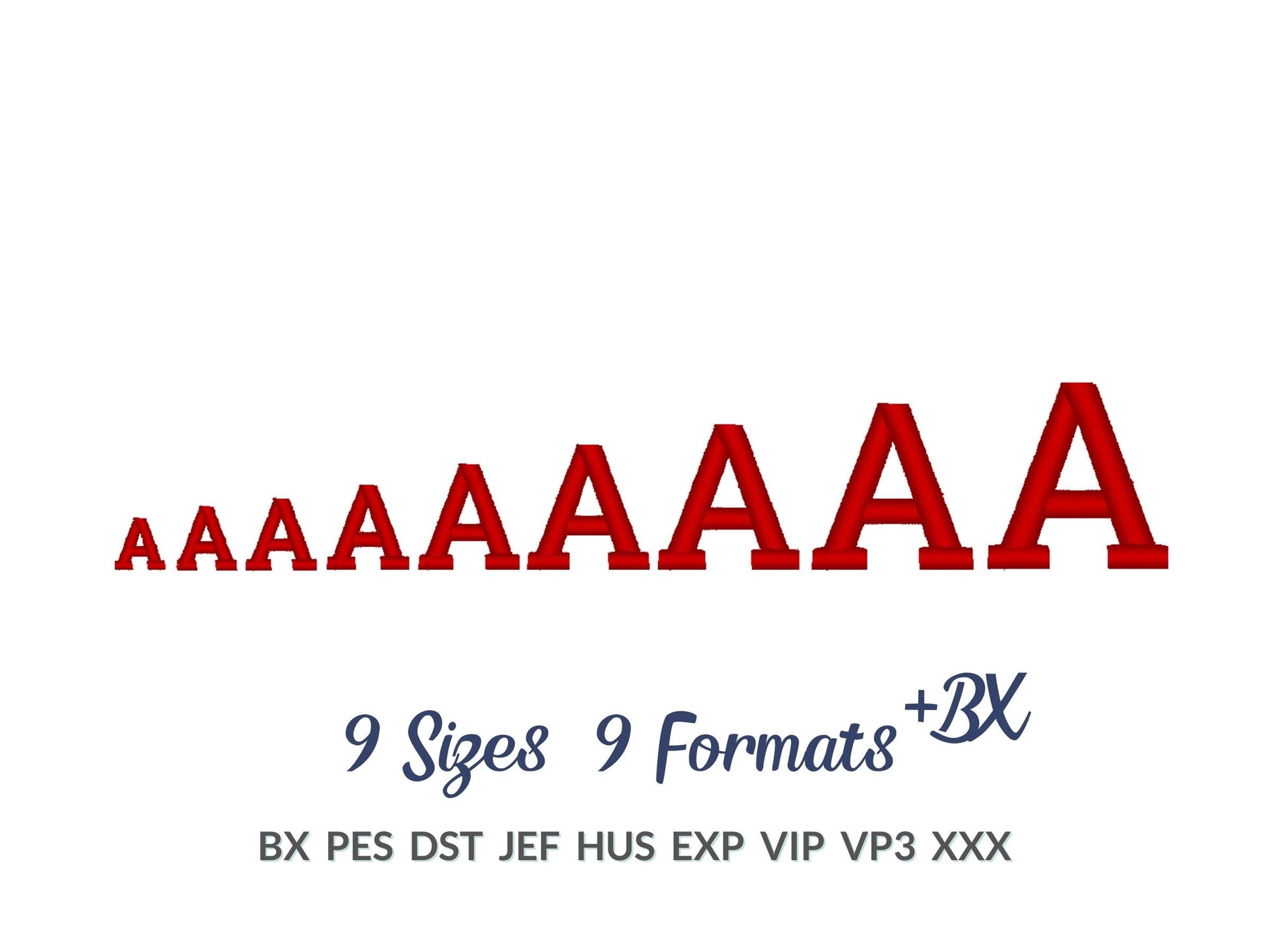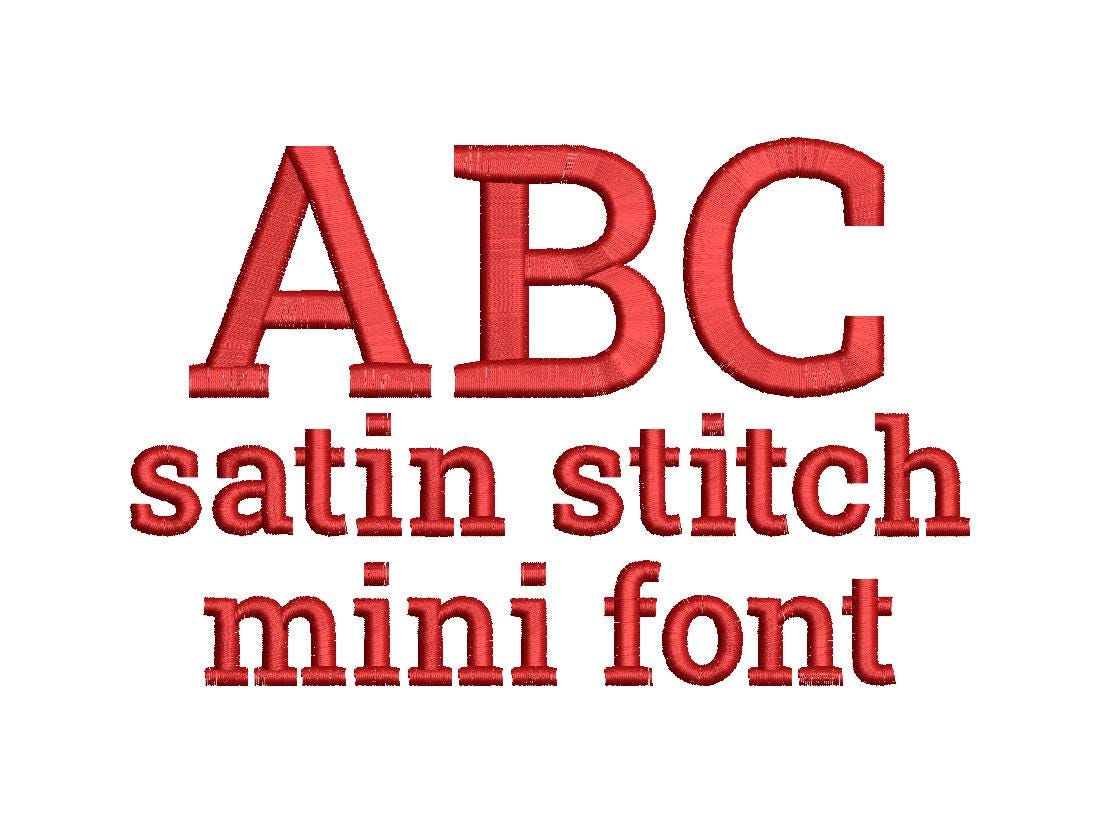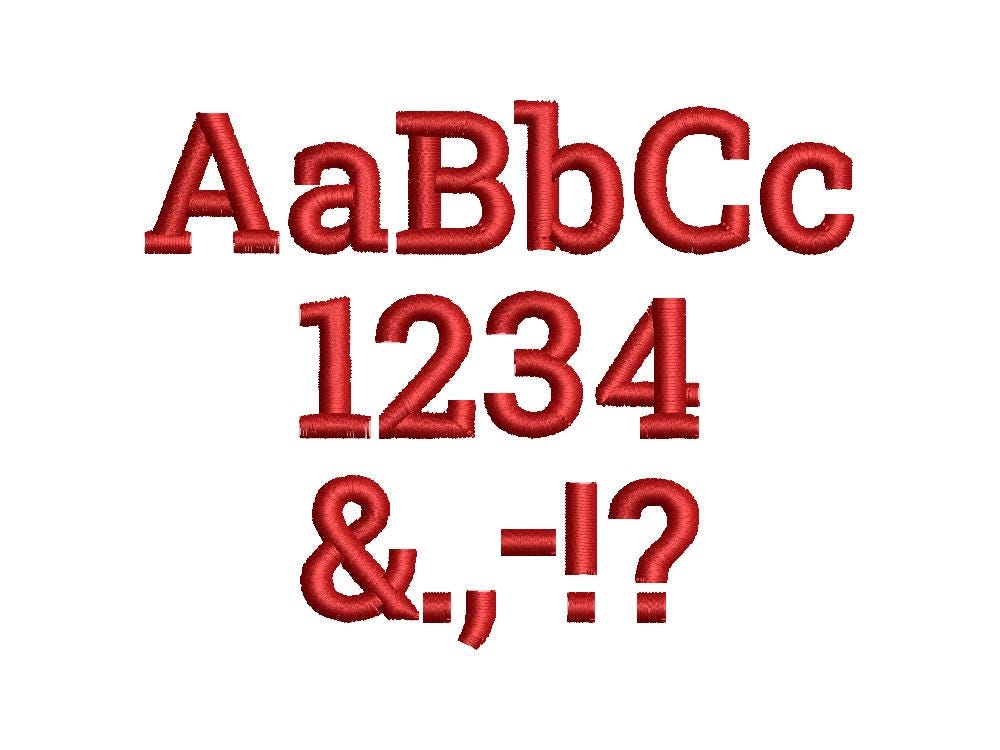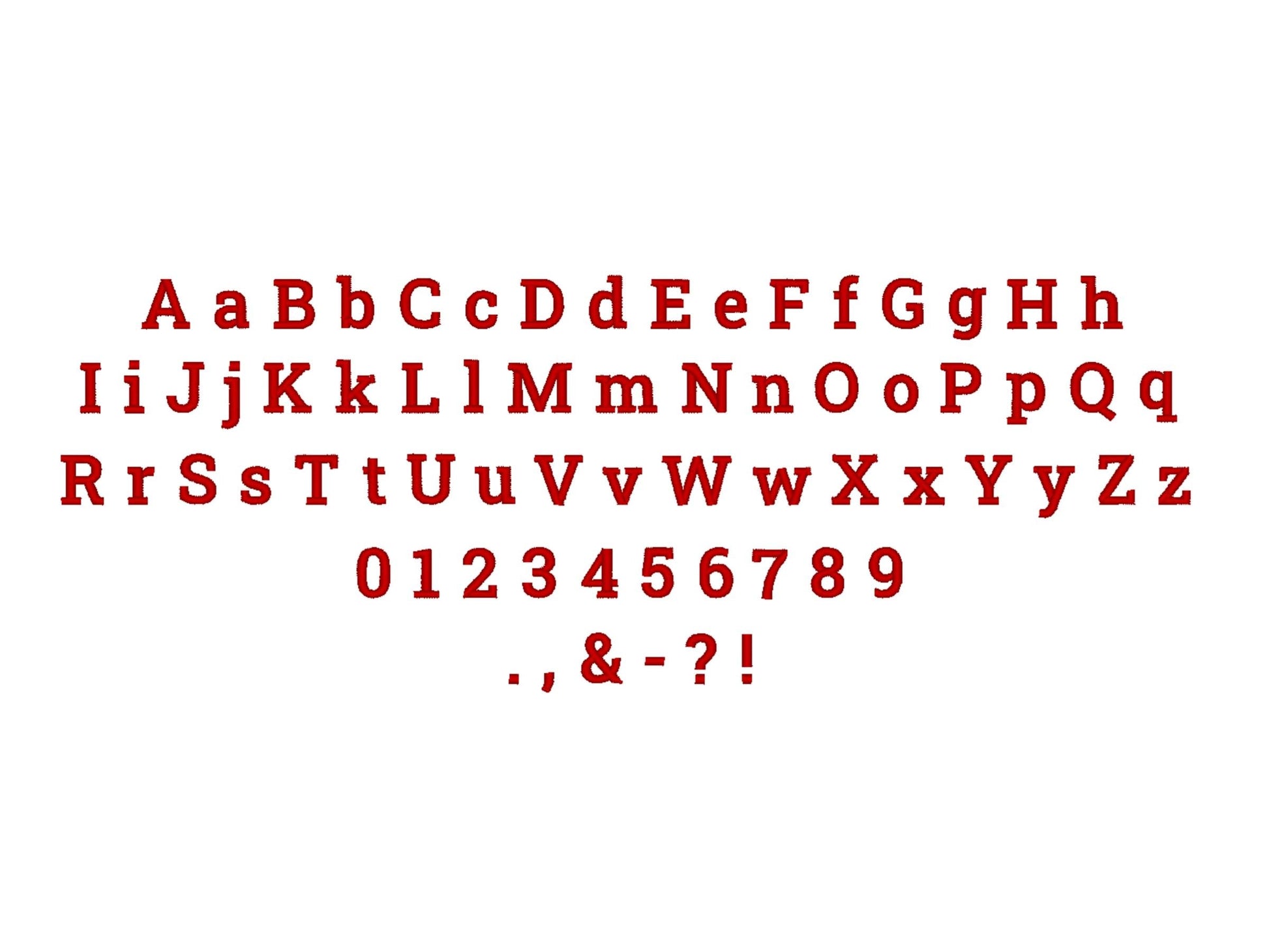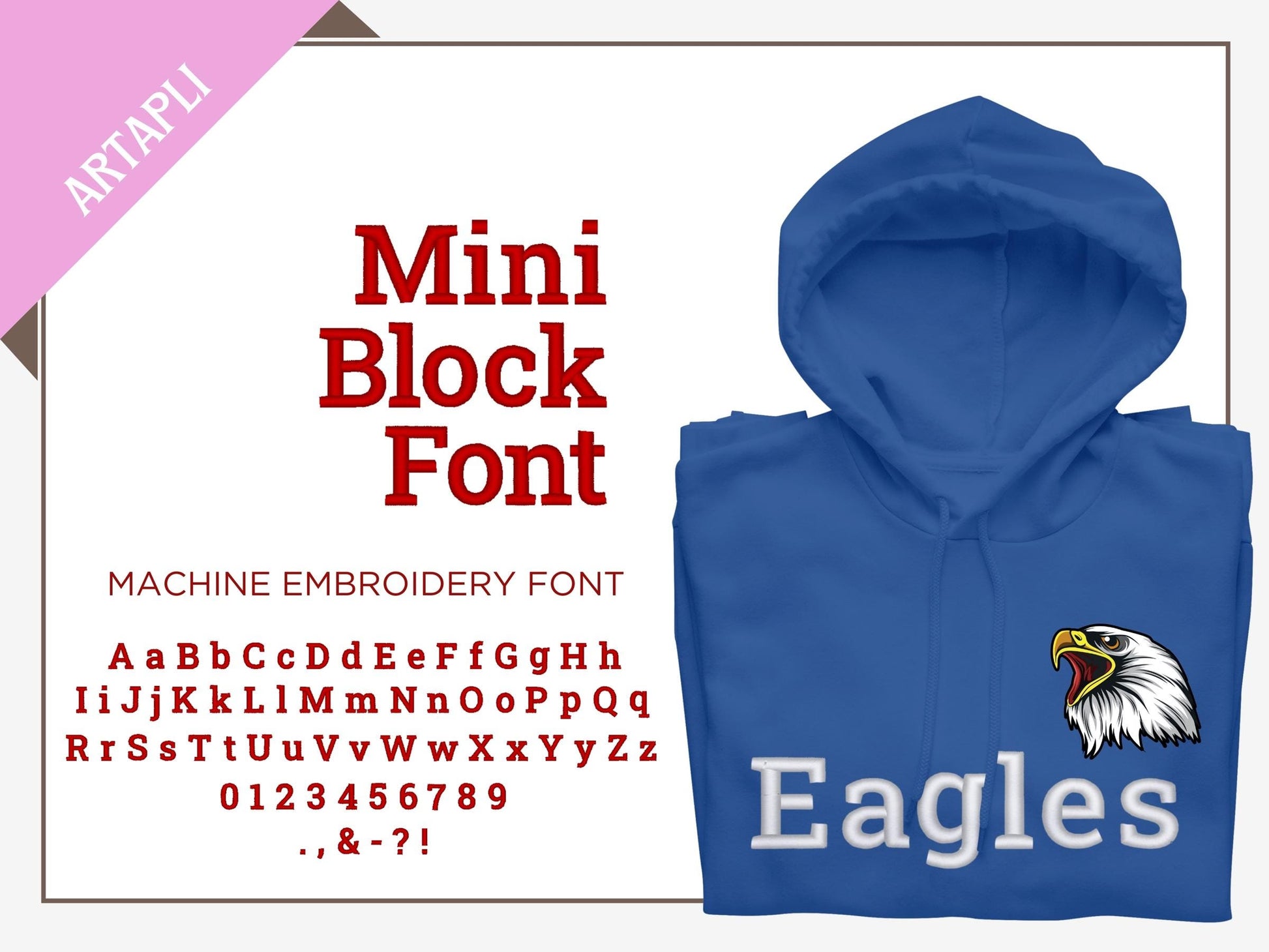
Or click to open the linkA mini satin stitch block font for small, neat lettering. Made for names on cuffs, necklines, pockets, bibs and labels.
Uppercase and lowercase letters, numbers 0 to 9 and punctuation. Nine mini sizes: 0.5, 0.6, 0.7, 0.8, 1, 1.2, 1.4, 1.6 and 1.8 inches.